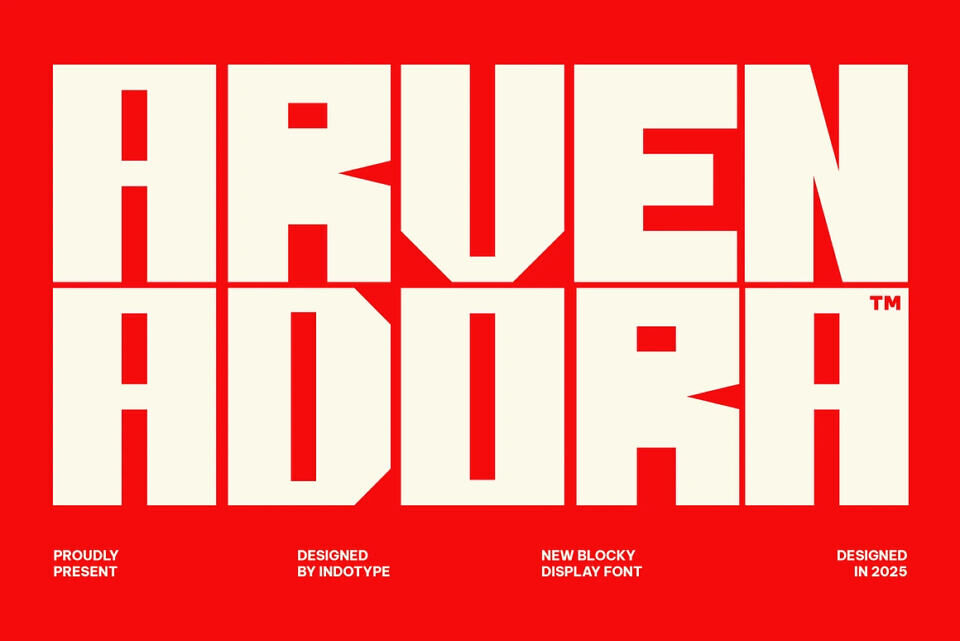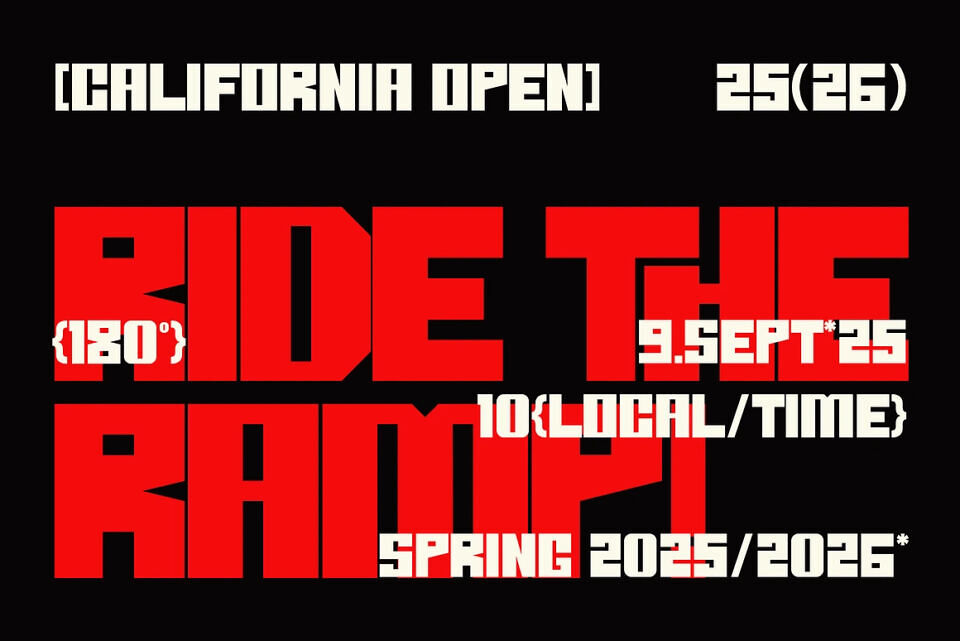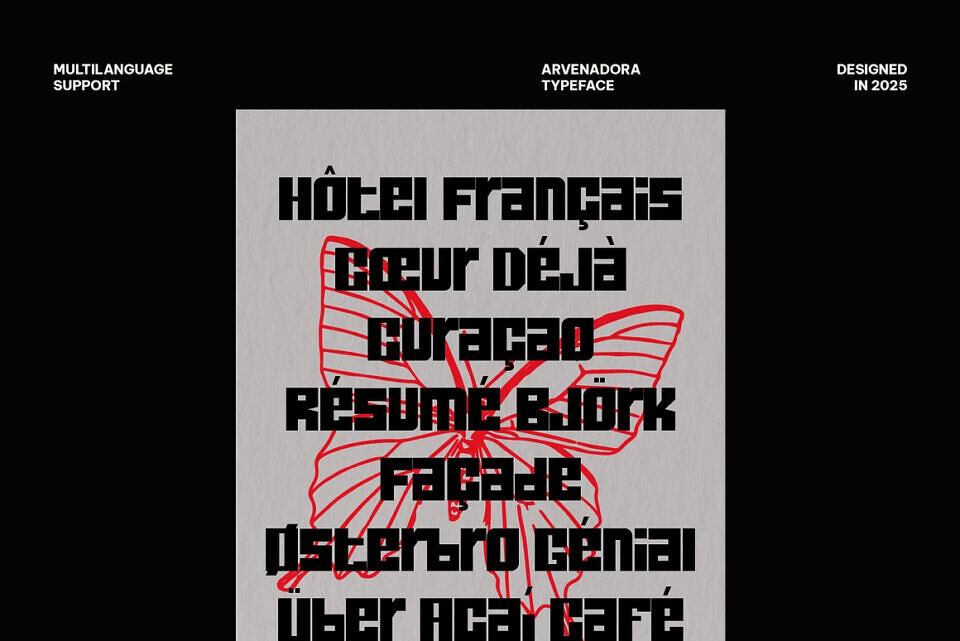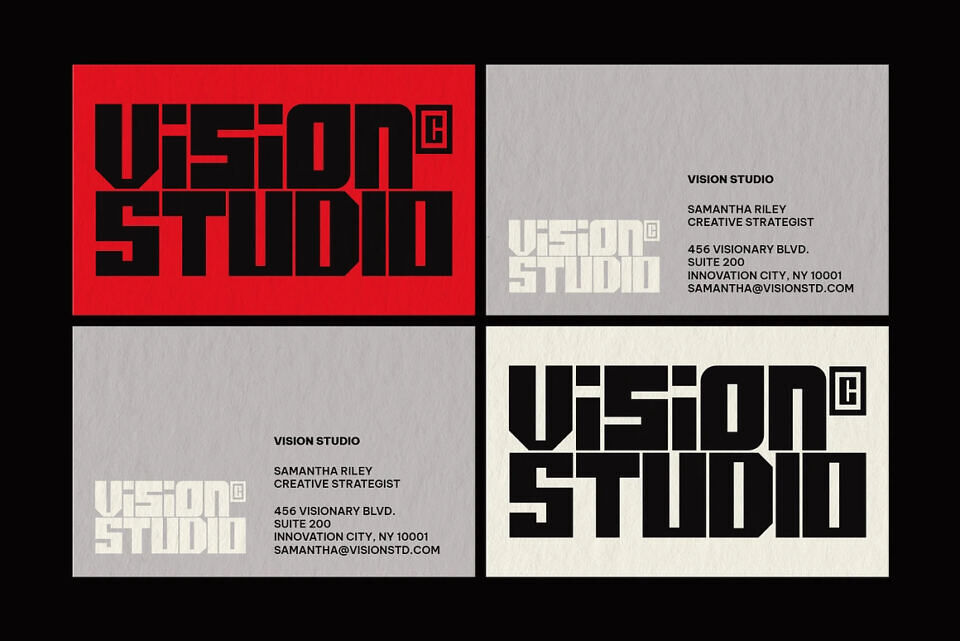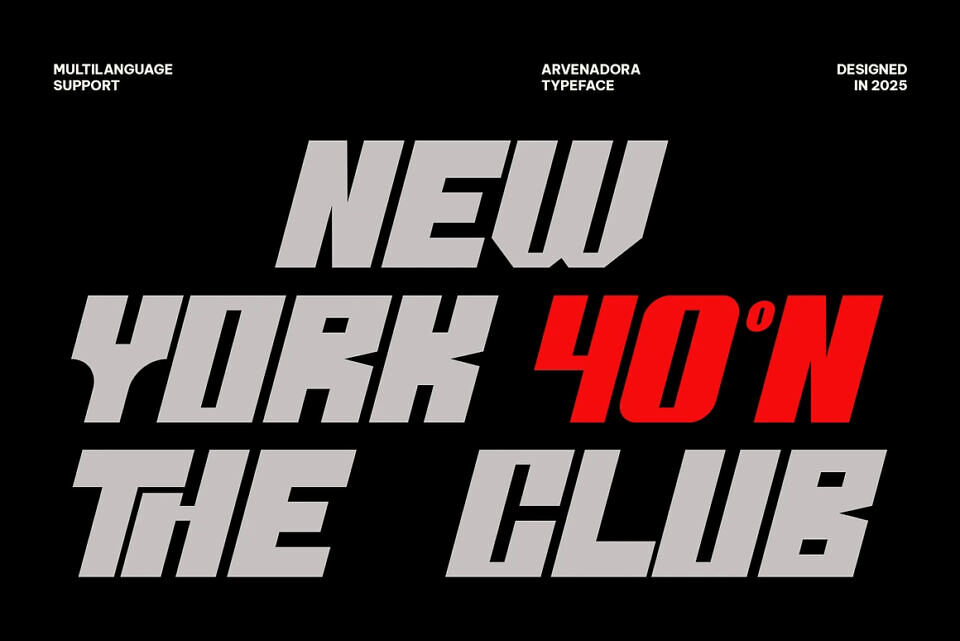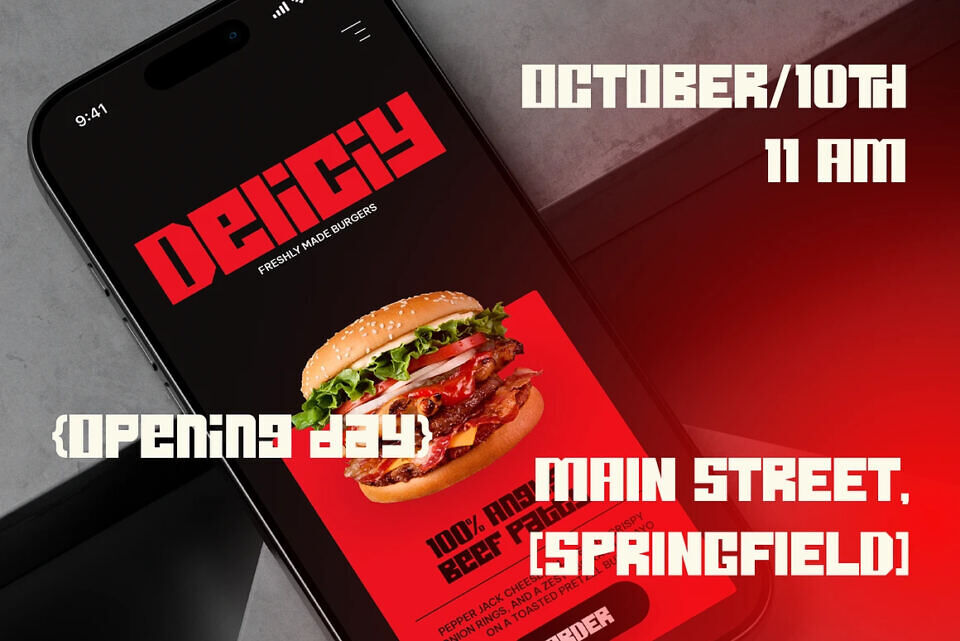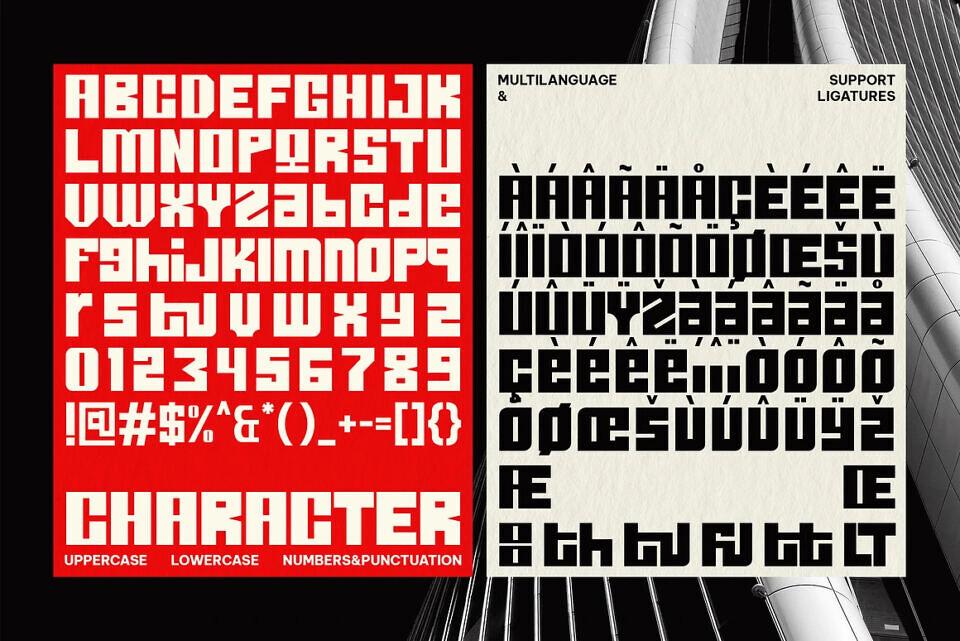
It Arvenadora Font
Arvenadora is a bold blocky display font that commands attention with its geometric structure and powerful presence. Featuring sharp angles, rigid proportions, and impactful forms, this typeface is designed for projects that require strength, authority, and clarity.
Its block-like letterforms make Arvenadora ideal for headlines, posters, sports branding, logos, signage, and modern digital graphics. Every character is designed to deliver maximum impact, ensuring that your message stands out loud and clear.